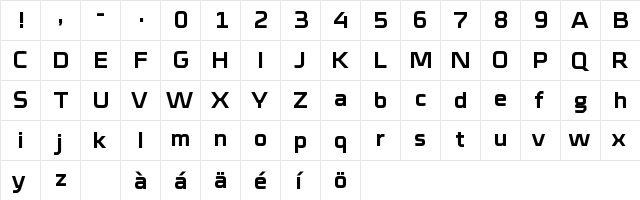
Cube Bold
| Designer | Jan Maack |
Design Context for Cube Typeface
Cube is a composed and adaptable typeface that performs quietly and consistently across a wide range of design contexts. Its bold stroke weight gives it real presence on the page.